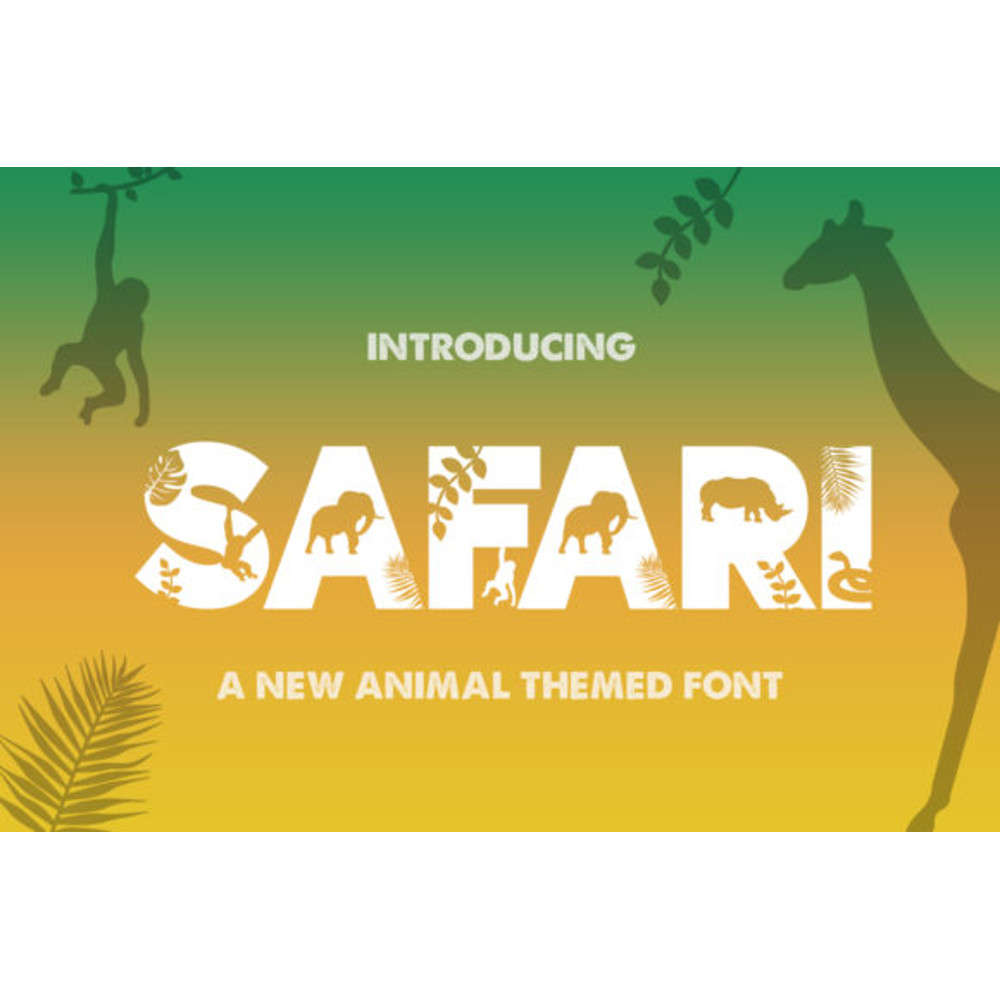
Safari Font
Safari features a playful range of sweet safari-themed ornaments like elephants, snakes or zebras, in each letter that give this unique display font an adventurous and cute feel. Get inspired by its unique charm, and turn any design idea into a true standout!
This font will perfectly fit various label and logo designs. It’s working better with short big words when all the details are visible.